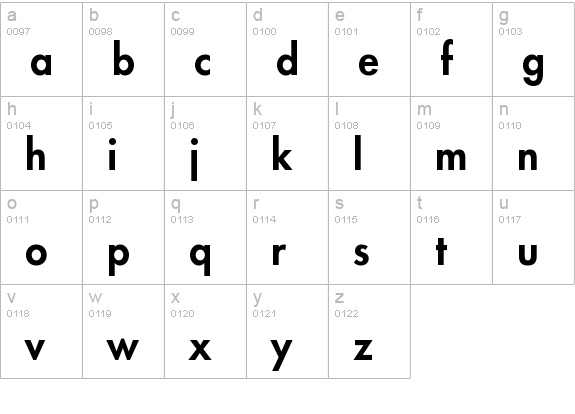
Kudos Black SSi Black is a maximum-weight, dramatic variant in the Kudos typeface family \xE2\x80\x94 well suited to maximum-impact headlines, posters, and packaging.
Kudos Black SSi Black font is a modern and stylish typeface that exudes sophistication and elegance. With its bold and sleek design, this font is perfect for creating eye-catching designs that demand attention. The strong and confident look of Kudos Black SSi Black font makes it ideal for headlines, branding, and other design projects where you want to make a statement. The best part about Kudos Black SSi Black font is that it is available for free download at FontsMarket.com. This means you can easily access this stunning font without any cost, making it a valuable addition to your font collection. Whether you are a designer, a business owner, or anyone looking to elevate your projects with a touch of class, Kudos Black SSi Black font is a fantastic choice that won't break the bank. Don't miss out on the opportunity to enhance your designs with this striking and versatile font. Download Kudos Black SSi Black font for free today at FontsMarket.com and start creating captivating visuals that leave a lasting impression.